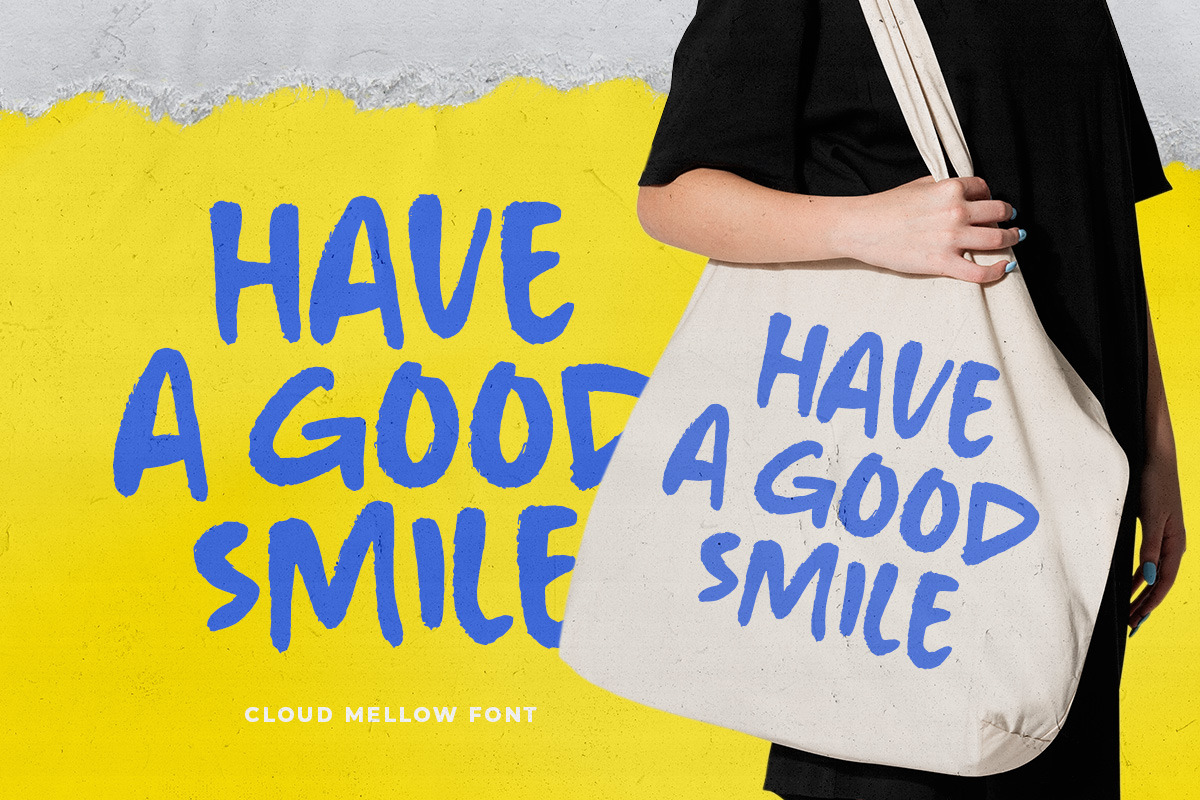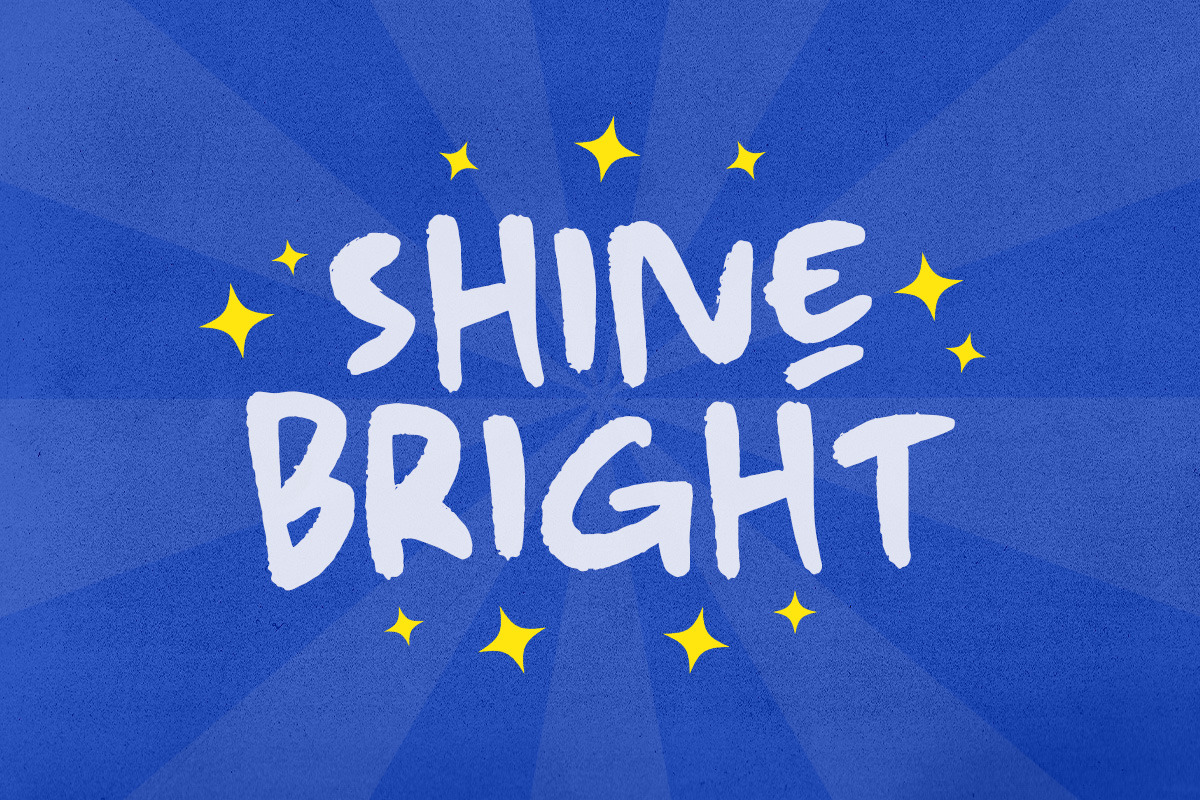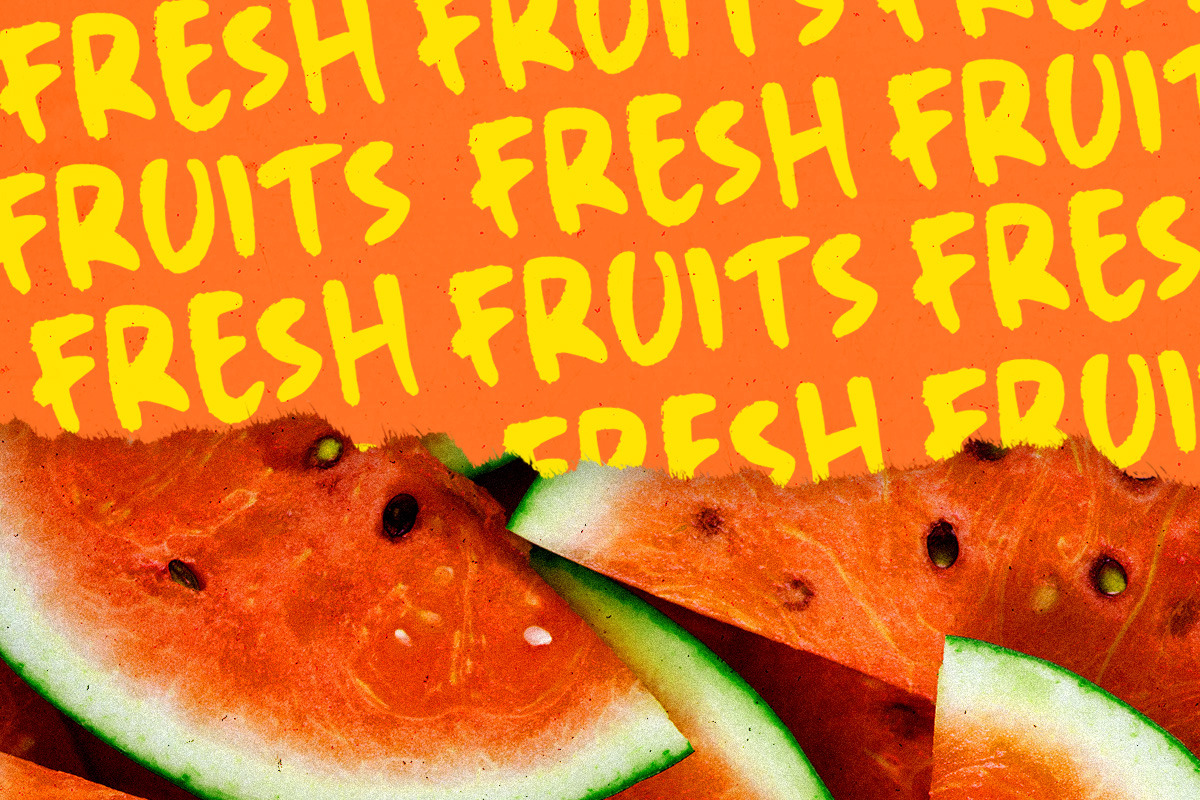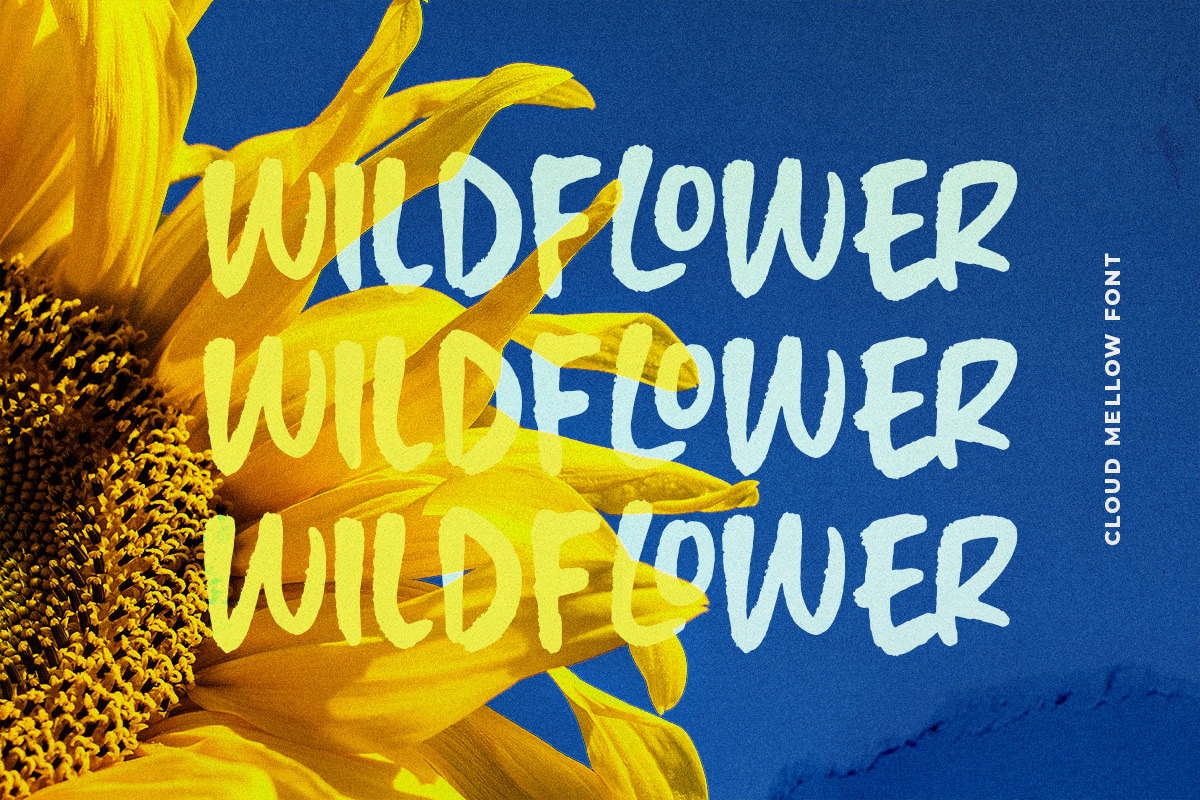
Cloud Mellow - Brush Handwritten
Introducing Cloud Mellow – a playful handwritten brush font with rough edges, crafted for headlines, logos, and signatures that demand attention. Its casual, fresh style adds a dash of fun and character to any design, making your creations stand out with ease.